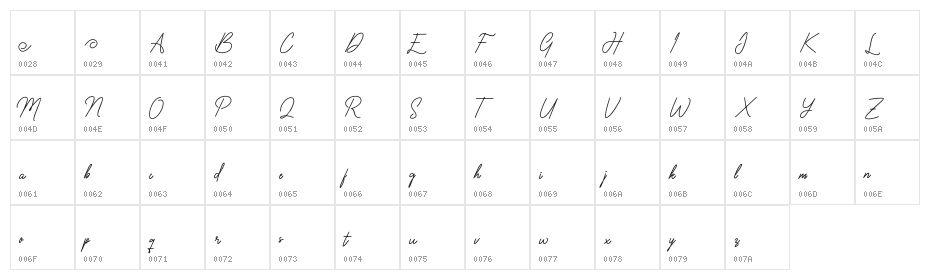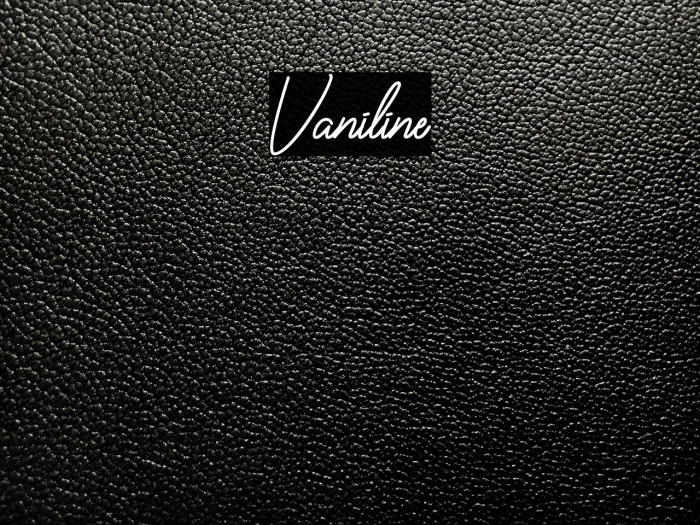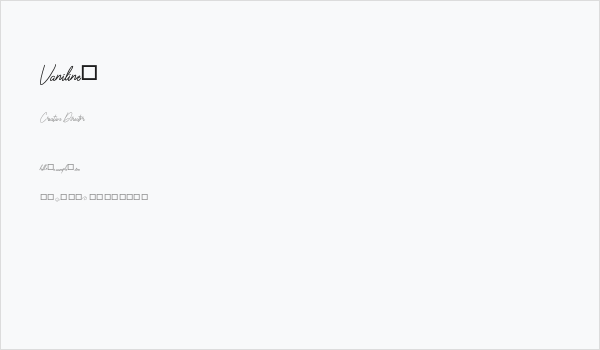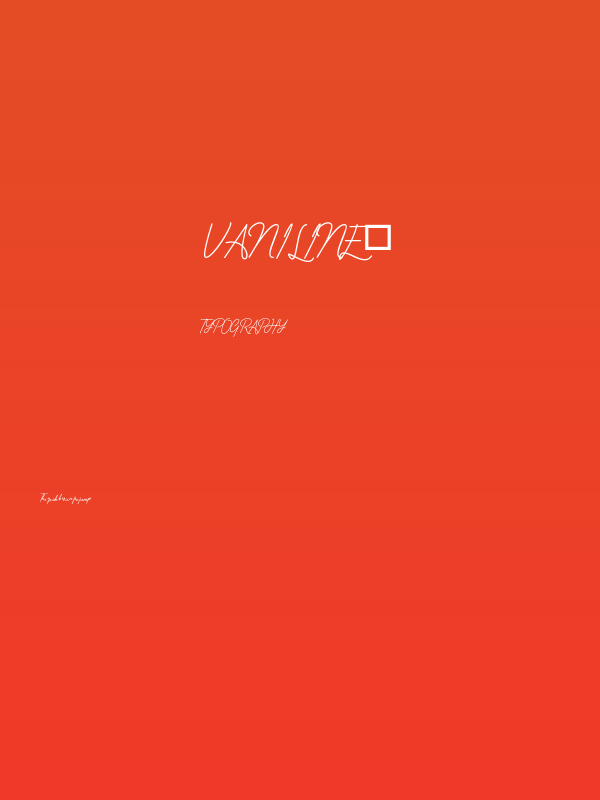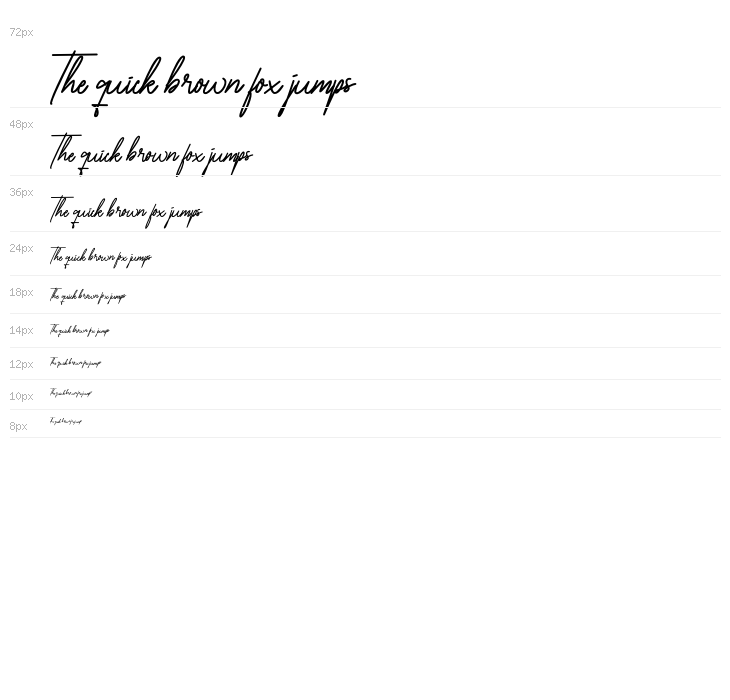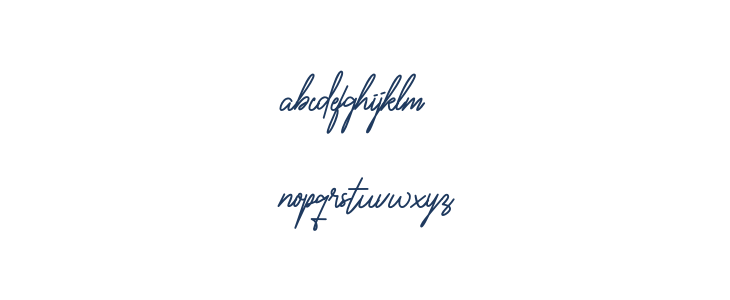
Vaniline2 Font
Vaniline2 Description
This font features an elegant and flowing script style, characterized by its smooth, connected strokes and a handwritten appearance. The uppercase letters are tall and slightly slanted, giving a sense of movement and grace. The lowercase letters maintain a consistent flow, with some letters featuring loops and flourishes that enhance the overall aesthetic. The font's design is sophisticated, making it suitable for formal invitations, branding, and decorative purposes. The absence of special characters suggests a focus on aesthetic appeal rather than functionality.
| Overall Style | Elegant, Decorative |
| Use Case | Headlines, Invitations, Branding |
| Proposed Projects | Ideal for wedding invitations, branding, greeting cards, and decorative projects. |